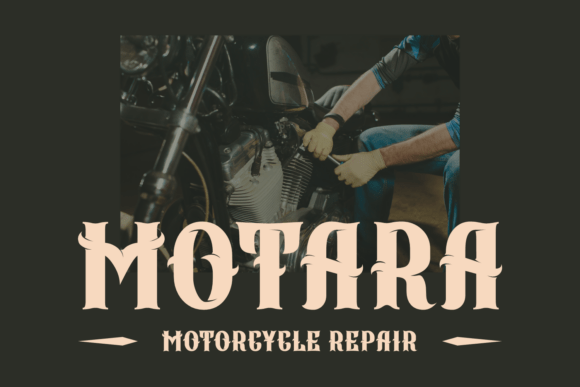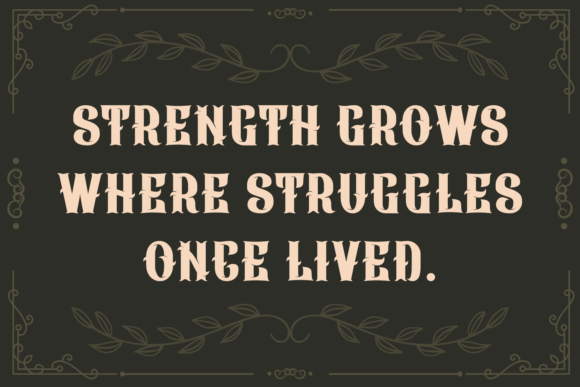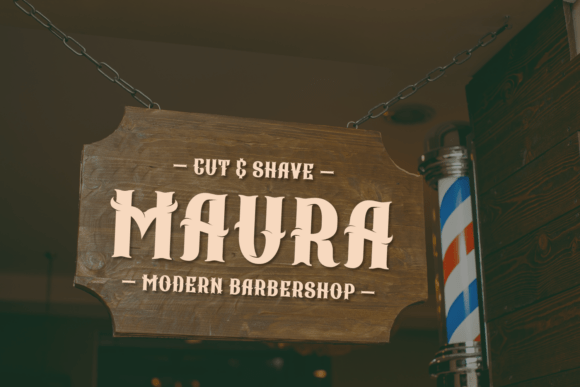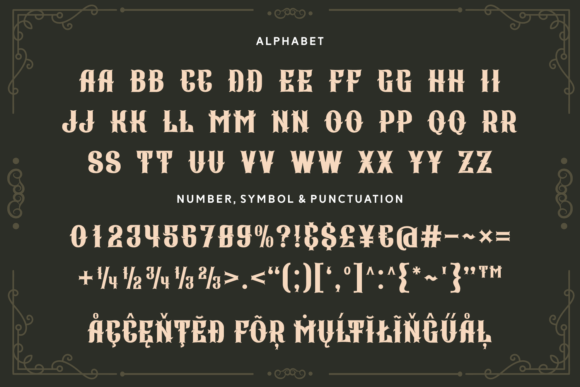
Aboxic Font: A Striking Blackletter Font for Modern Gothic Designs
In the world of typography, fonts play a crucial role in conveying the tone and personality of a design. For designers and crafters looking for a font that exudes strength, tradition, and timeless character, Aboxic Font is an excellent choice. This striking blackletter font combines gothic boldness with modern readability, making it perfect for a wide range of design projects.
The Unique Features of Aboxic Font
Aboxic Font boasts sharp edges, dramatic strokes, and ornamental details that give it a distinctive look. Its gothic-inspired design is reminiscent of medieval times, yet its modern twist makes it suitable for contemporary designs. The font’s bold and condensed style ensures that it stands out in any design, making it ideal for logos, posters, vintage labels, tattoos, and merchandise.
Perfect for Modern Gothic Designs
Aboxic Font is a great choice for designers who want to create modern gothic designs that are both bold and elegant. Its unique blend of traditional and modern elements makes it perfect for designs that require a touch of sophistication and drama. Whether you’re creating a logo, poster, or merchandise, Aboxic Font is sure to make a statement.
Ideal for Classic Medieval-Inspired Projects
In addition to its modern gothic appeal, Aboxic Font is also ideal for classic medieval-inspired projects. Its blackletter design and ornamental details evoke a sense of nostalgia and tradition, making it perfect for designs that require a vintage or medieval feel. Whether you’re creating a historical document, a fantasy novel, or a medieval-themed poster, Aboxic Font is an excellent choice.
Versatility of Aboxic Font
One of the best things about Aboxic Font is its versatility. Its bold and condensed style makes it suitable for a wide range of design projects, from logos and posters to vintage labels and merchandise. Additionally, its modern readability ensures that it can be used for both digital and print designs.
Design Applications of Aboxic Font
Aboxic Font can be used in a variety of design applications, including:
- Logos: Aboxic Font is perfect for creating bold and memorable logos that make a statement.
- Posters: Its dramatic strokes and ornamental details make it ideal for creating eye-catching posters that grab attention.
- Vintage Labels: Aboxic Font’s medieval-inspired design makes it perfect for creating vintage labels that evoke a sense of nostalgia.
- Tattoos: Its bold and condensed style makes it suitable for tattoo designs that require a strong and striking font.
- Merchandise: Aboxic Font can be used to create a wide range of merchandise, from t-shirts to mugs, that make a statement.
In conclusion, Aboxic Font is a striking blackletter font that combines gothic boldness with modern readability. Its unique features, versatility, and design applications make it an excellent choice for designers and crafters looking for a font that embodies strength, tradition, and timeless character. Whether you’re creating modern gothic designs or classic medieval-inspired projects, Aboxic Font is sure to make a statement.